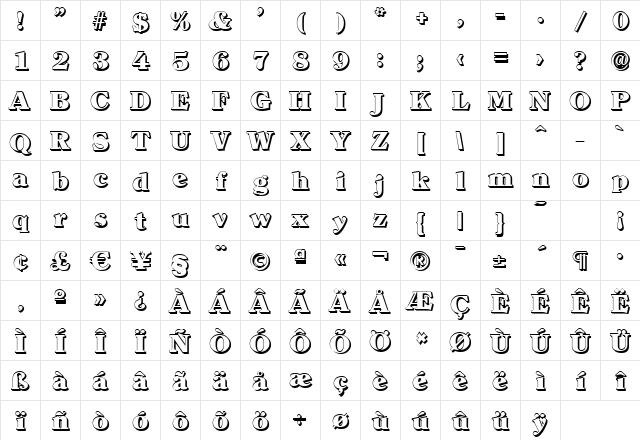
ChristianBeckerShadow-Heavy Regular
Design Context for ChristianBeckerShadow-Heavy
ChristianBeckerShadow-Heavy is built around its visual character rather than neutral utility - its distinctive forms are designed to make an impression at display sizes.
Font Pairing: Pair with a clean neutral sans-serif for body copy to let ChristianBeckerShadow-Heavy's character lead without overwhelming the composition.
Pro Tip: Use ChristianBeckerShadow-Heavy exclusively at display sizes - it was designed to be seen, not read at length. Let a neutral companion handle body copy.